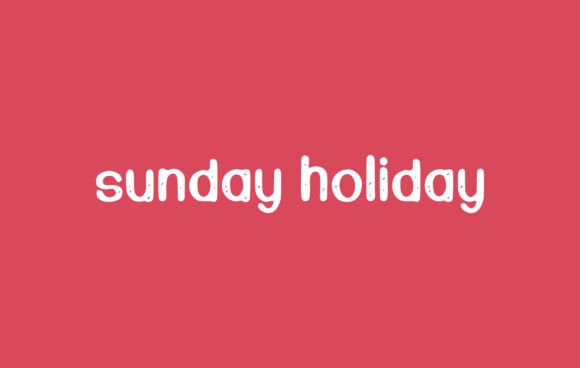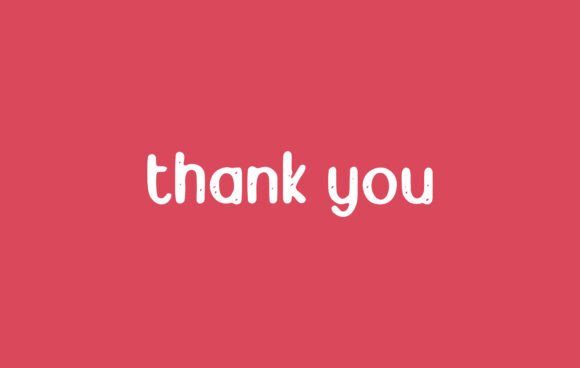
Have you ever been stuck on a design project, searching for that perfect font to bring your creative vision to life? We’ve all been there – scrolling through font libraries, trying out different styles, and hoping to stumble upon that elusive ‘aha’ moment. For many designers, this moment comes when they discover the perfect font to convey their message and captivate their audience.
Enter Bunny Font, a charming, handwritten font that exudes a romantic touch and is sure to elevate your designs. This authentic font is expertly designed to be a true favorite among designers, and for good reason. Its legibility and versatility make it a perfect choice for everything from magazine headlines to social media posts, wedding invitations, and more.
With Bunny Font, you can take your creative ideas to the next level and create designs that truly stand out. Its unique charm and character make it a valuable asset for any designer looking to add a touch of whimsy to their work.
Bunny Font Key Features
- Font Family: Bunny Font comes in a single font family with multiple styles and weights.
- Unique Characteristics: Bunny Font features a playful, whimsical design with custom letterforms and ligatures, making it ideal for children’s books, greeting cards, and other creative projects.
Bunny Font Review
Bunny Font is an adorable, hand-drawn font that’s sure to capture attention. ✨ Its whimsical design makes it perfect for projects that require a playful touch. ✨ The font’s curves and lines are smooth and well-balanced, making it easy to read.
- Bunny Font comes in a range of weights and styles, from light to bold, which makes it versatile for various applications.
- The font’s custom characters and accents add a unique touch, making it stand out from more generic fonts.
However, there are some limitations to consider: ⚠️ The font may not be suitable for formal or professional projects, as its playful nature may come across as unprofessional. ⚠️ Additionally, the font’s complexity may cause issues with text alignment or spacing in certain layouts.
Overall, I’d say Bunny Font is a great choice for projects that require a lighthearted and creative touch. While it may not be the best fit for every project, it’s definitely worth considering for those looking to add some personality to their designs.